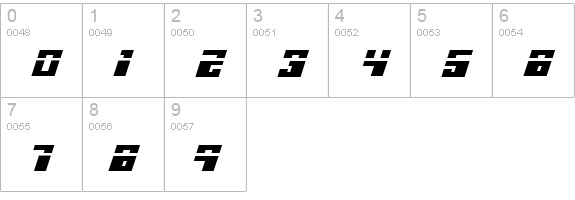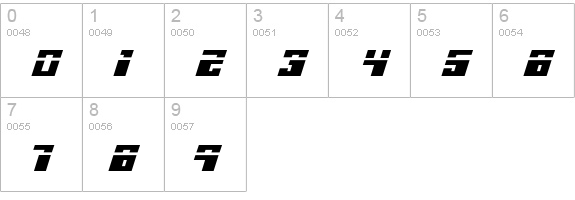
Micronian Laser Italic is a distinctive, italic variant in the Micronian typeface family \xE2\x80\x94 well suited to design and typography projects.
Introducing Micronian Laser Italic font, a sleek and modern typeface designed for striking and futuristic designs. This font exudes a sense of sophistication and innovation with its sharp angles and elegant curves. The Micronian Laser Italic font is perfect for adding a touch of high-tech flair to your projects, whether it be for logos, branding, posters, or websites. And the best part? This cutting-edge font is available for free download at FontsMarket.com. Take advantage of this incredible offer and elevate your designs with the unique style of Micronian Laser Italic font. Let your creativity soar with this versatile and eye-catching typeface that is sure to make a bold statement in any project. Download Micronian Laser Italic font now and experience the power of modern design at your fingertips.